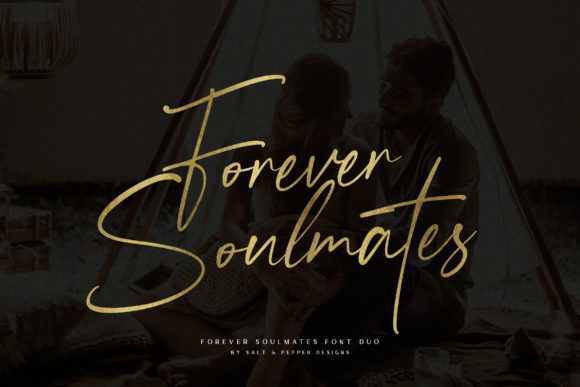
Forever Soulmates Font: The Ultimate Duo for Stunning Designs
Are you tired of using the same old fonts for your designs? Look no further than the Forever Soulmates Font, a beautifully crafted duo font that is sure to take your creations to the next level. This incredible font combination consists of a sans serif and script font, making it the perfect choice for creating eye-catching logos, branding, and quotes.
What Makes Forever Soulmates Font So Special?
Forever Soulmates Font is not just any ordinary font. It’s a versatile duo that offers a unique and beautiful touch to every letter. The sans serif font is clean and modern, while the script font adds a touch of elegance and sophistication. The combination of the two fonts creates a stunning contrast that will make your designs stand out from the crowd.
Key Features of Forever Soulmates Font
- Unique and Beautiful Touch: Every letter in the Forever Soulmates Font has a unique and beautiful touch that will make your designs come alive.
- Versatile Duo: The font combination includes a sans serif and script font, making it perfect for a wide range of design applications.
- Elegant and Modern: The sans serif font is clean and modern, while the script font adds a touch of elegance and sophistication.
- Perfect for Logos and Branding: The Forever Soulmates Font is ideal for creating eye-catching logos and branding materials that will leave a lasting impression.
The Benefits of Using Forever Soulmates Font
Using the Forever Soulmates Font can bring numerous benefits to your designs. Here are just a few:
- Stand Out from the Crowd: With its unique and beautiful touch, the Forever Soulmates Font is sure to make your designs stand out from the crowd.
- Enhance Your Brand: The font’s elegant and modern design makes it perfect for creating logos and branding materials that will enhance your brand’s image.
- Increase Engagement: The Forever Soulmates Font is sure to grab the attention of your audience and increase engagement with your designs.
- Save Time: With its versatility and ease of use, the Forever Soulmates Font can save you time and effort in creating stunning designs.
Design Tips for Using Forever Soulmates Font
Here are some design tips to help you get the most out of the Forever Soulmates Font:
- Mix and Match: Experiment with different font combinations to create a unique look that suits your design.
- Play with Sizes: Play with different font sizes to create visual interest and hierarchy in your design.
- Add Texture and Patterns: Add texture and patterns to your design to give it an extra layer of depth and interest.
- Experiment with Colors: Experiment with different colors to find the perfect combination that suits your brand and design.
Who Can Benefit from Forever Soulmates Font?
The Forever Soulmates Font is perfect for a wide range of designers and businesses, including:
- Graphic Designers: Graphic designers can use the Forever Soulmates Font to create stunning logos, branding materials, and quotes.
- Small Business Owners: Small business owners can use the font to create professional-looking logos and branding materials that will enhance their brand’s image.
- Marketers: Marketers can use the font to create eye-catching marketing materials that will grab the attention of their target audience.
- Bloggers and Influencers: Bloggers and influencers can use the font to create stunning social media graphics and blog posts.
What Others Are Saying About Forever Soulmates Font
“I’ve been using the Forever Soulmates Font for my designs and it’s been a game-changer. The font is so versatile and easy to use, and the support team is amazing!”
Emily, Graphic Designer
“I was blown away by the quality of the Forever Soulmates Font. It’s perfect for creating professional-looking logos and branding materials for my clients.”
In conclusion, the Forever Soulmates Font is an incredibly beautiful and versatile duo font that is perfect for creating eye-catching logos, branding, and quotes. With its unique and beautiful touch, elegant and modern design, and ease of use, this font is sure to take your designs to the next level. Whether you’re a graphic designer, small business owner, marketer, or blogger, the Forever Soulmates Font is a must-have in your design toolkit.